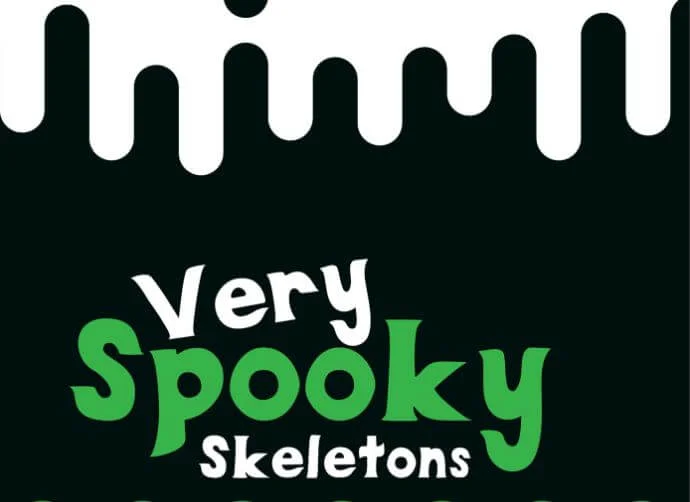
These text styles can fundamentally affect your plan by achieving a feeling of aesthetics and lively character. A portion of the territories where amaranth textual styles can be utilized incorporate Logos, Headings, Badges, Posters, Greeting Cards, and Emblems.
Ghost textual styles can be applied to any website architecture task to flavor things up. This intelligent, carefree decision of typography radiates a unique vibe that is absent in the understandable content and sans text styles.
Ghost Font Free
Ghost textual styles can make your content look progressively exquisite, unique, and individual. Ghost font text styles exist on the web, and sifting through the best ones is a test most website specialists battle with. This font also comes in ghost gaming font.
The ghost font textual styles underneath were chosen dependent on their neatness, highlights, adaptability, and, when accessible, their surveys. They are positioned in no specific request, yet speak to the best affordable choices. Given these focuses, all names in the rundown will encourage your website composition venture in some way.